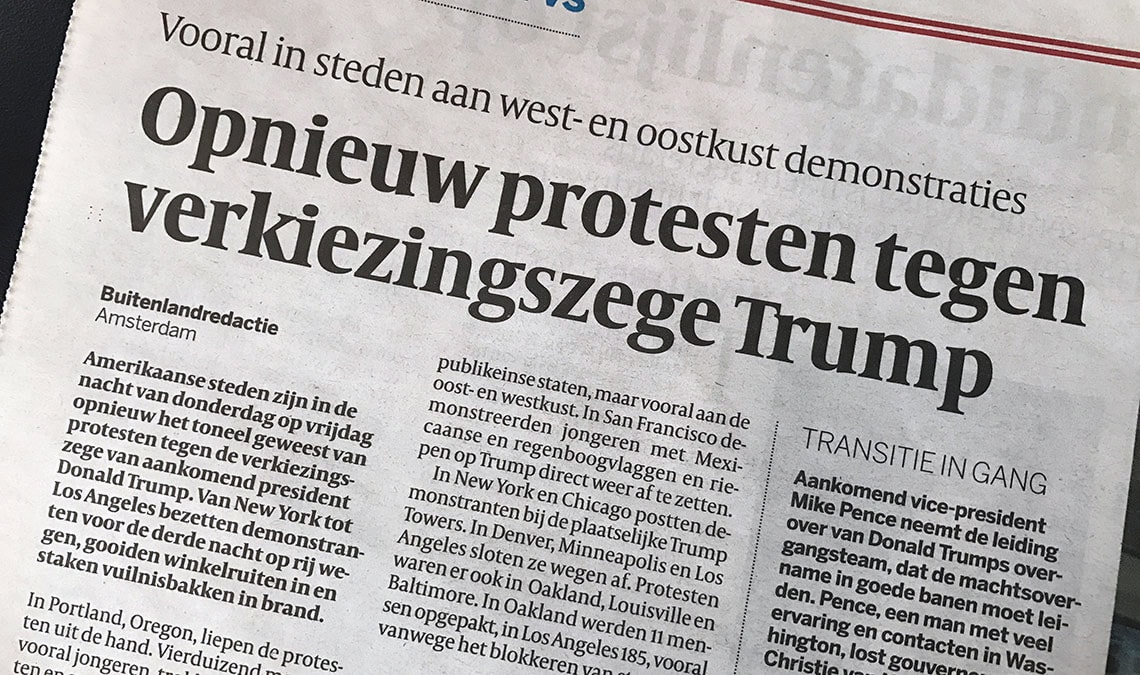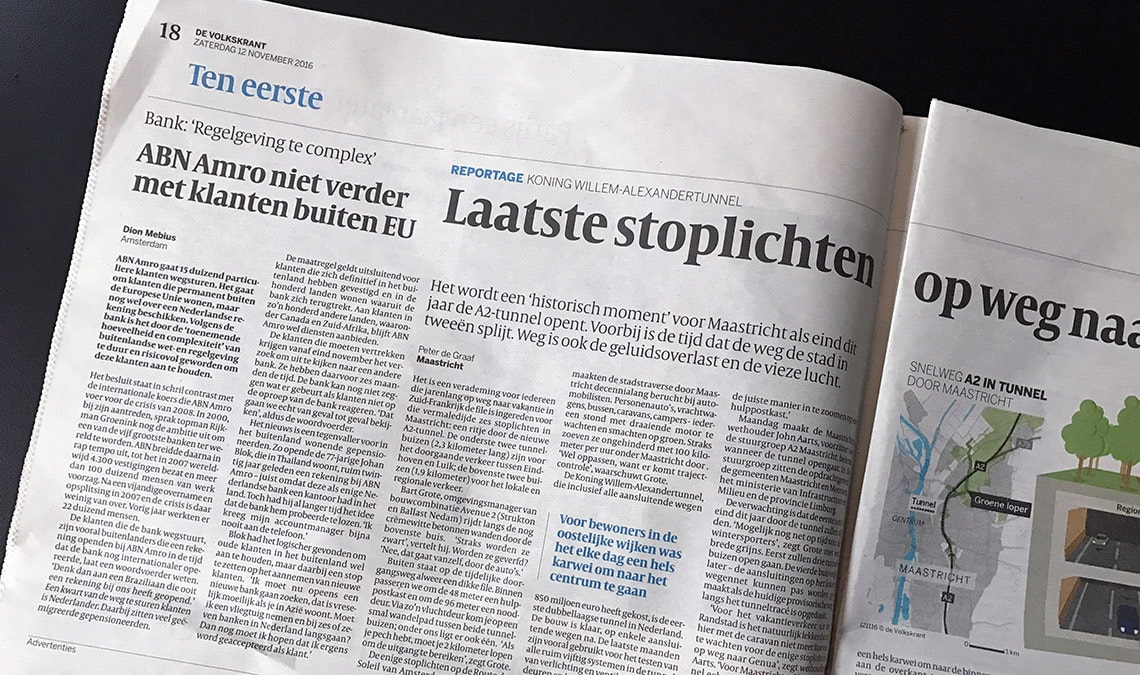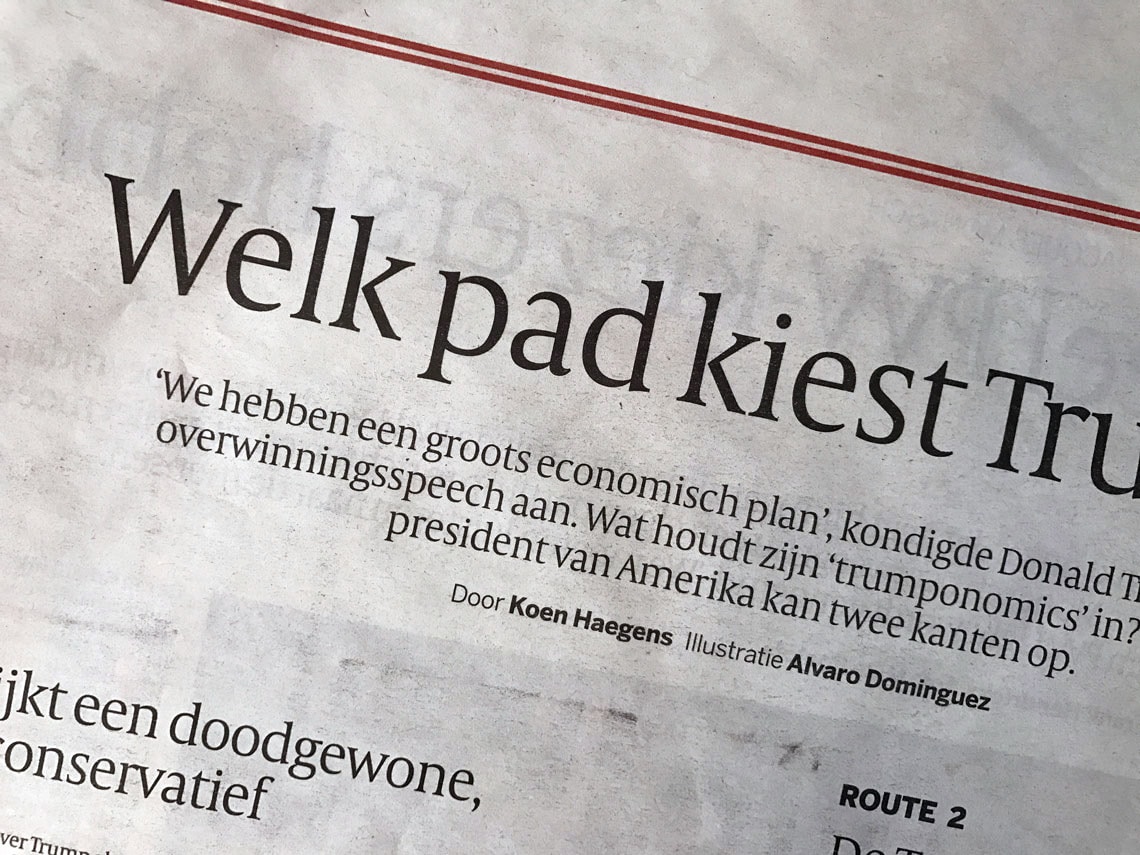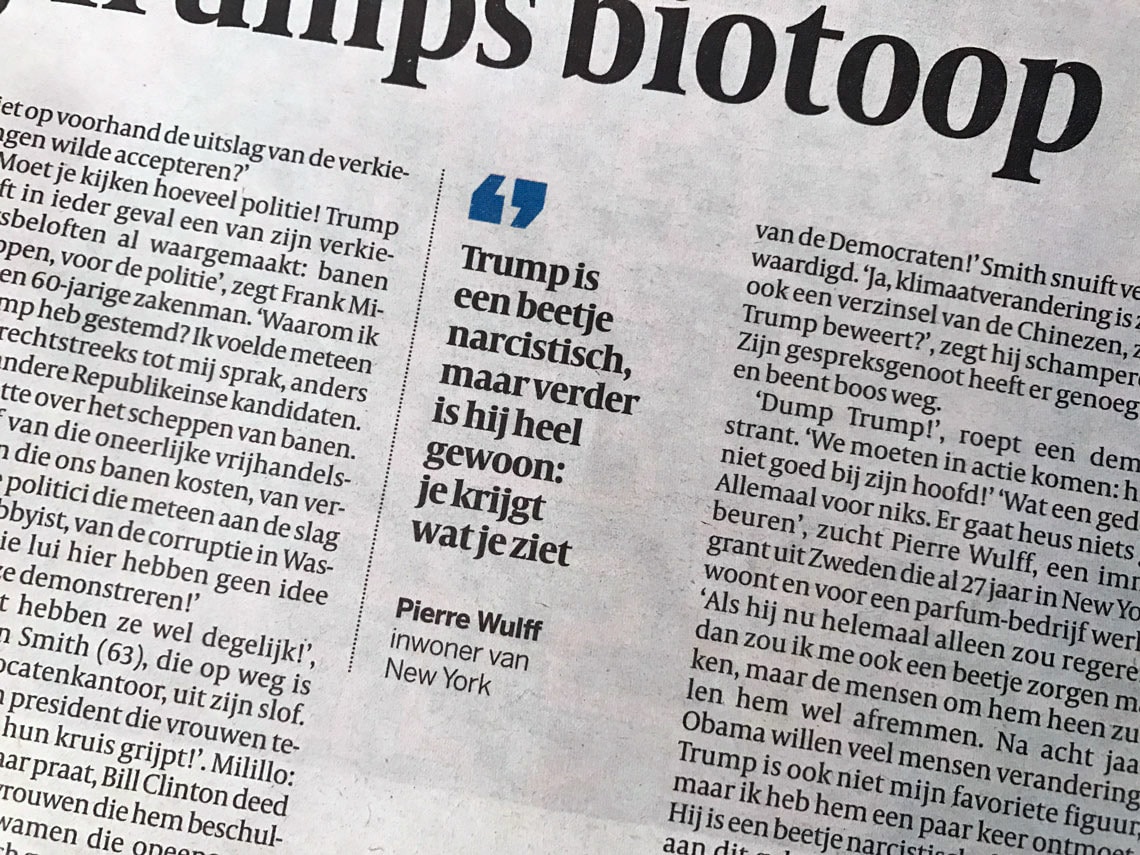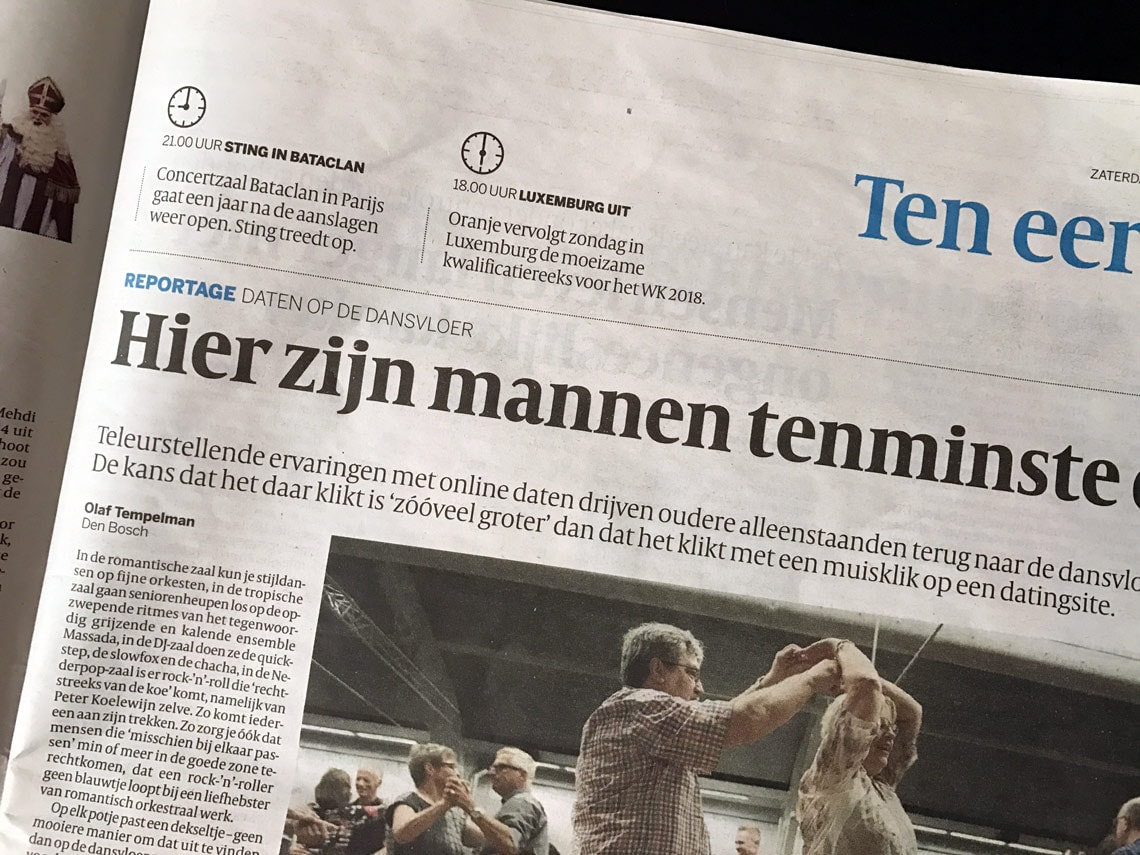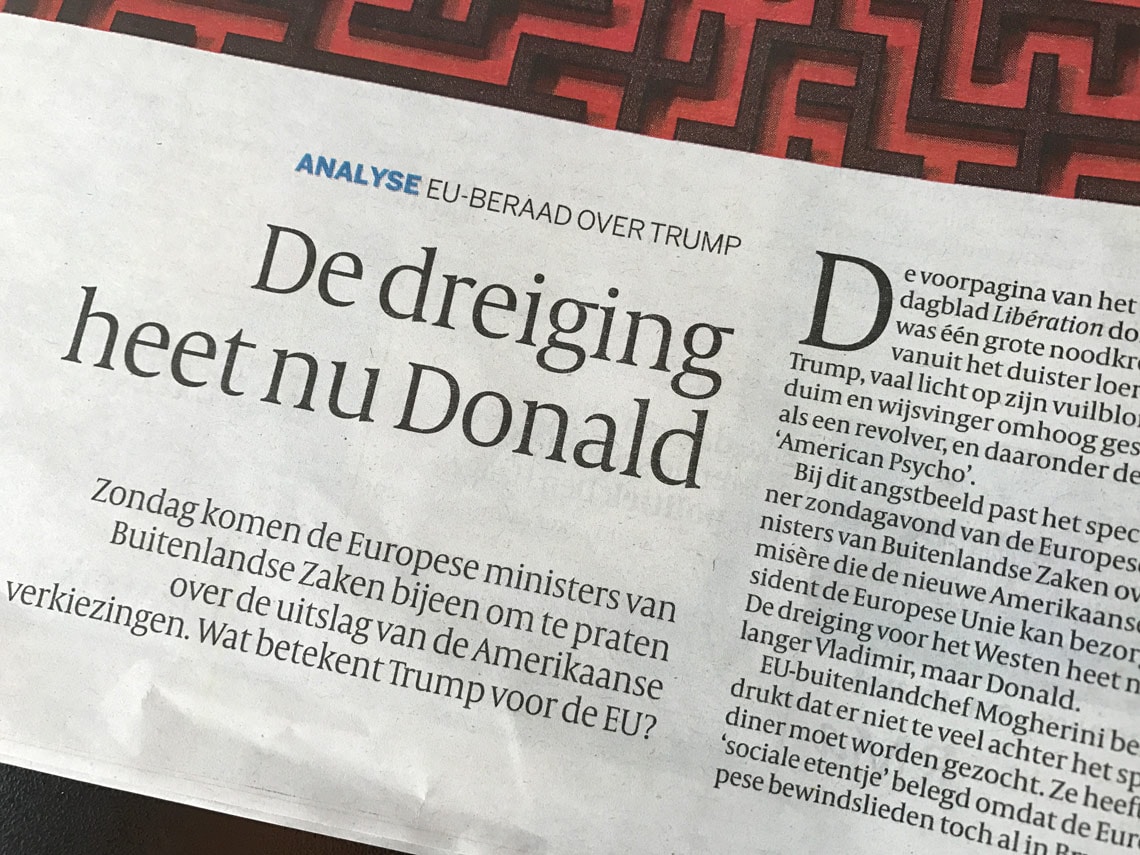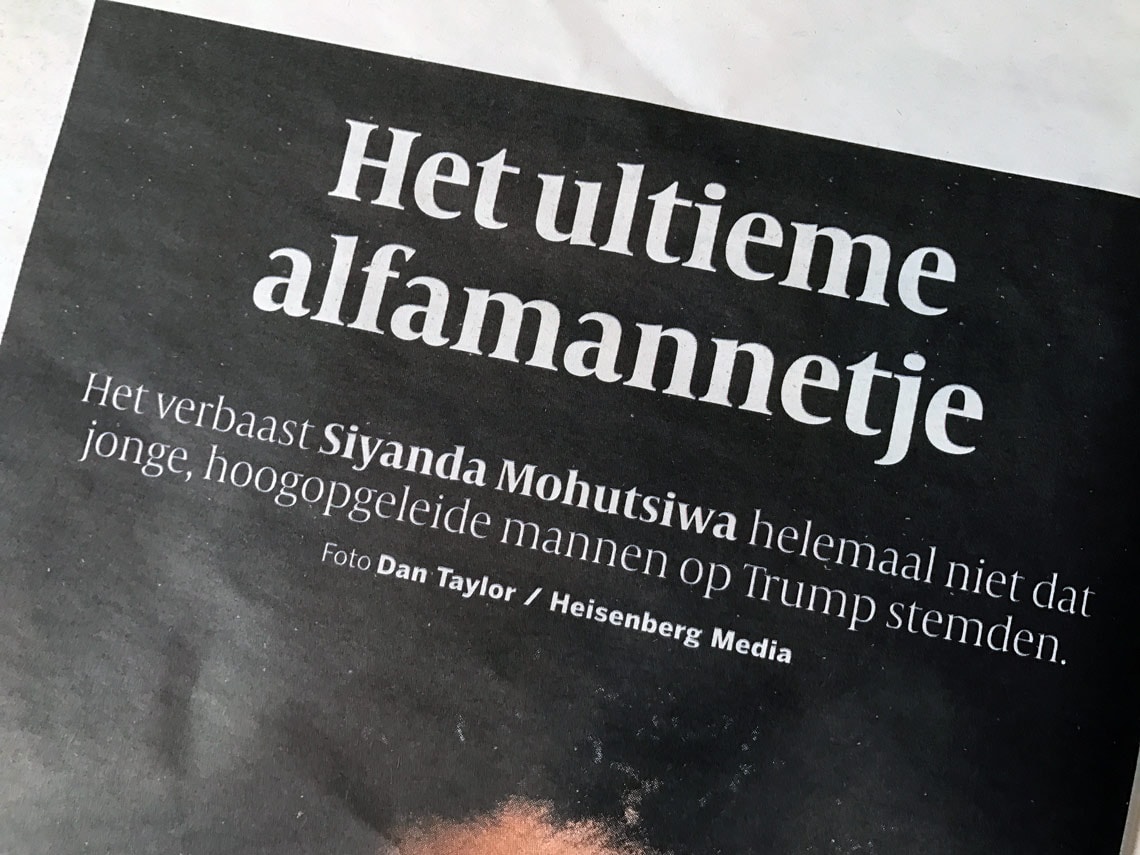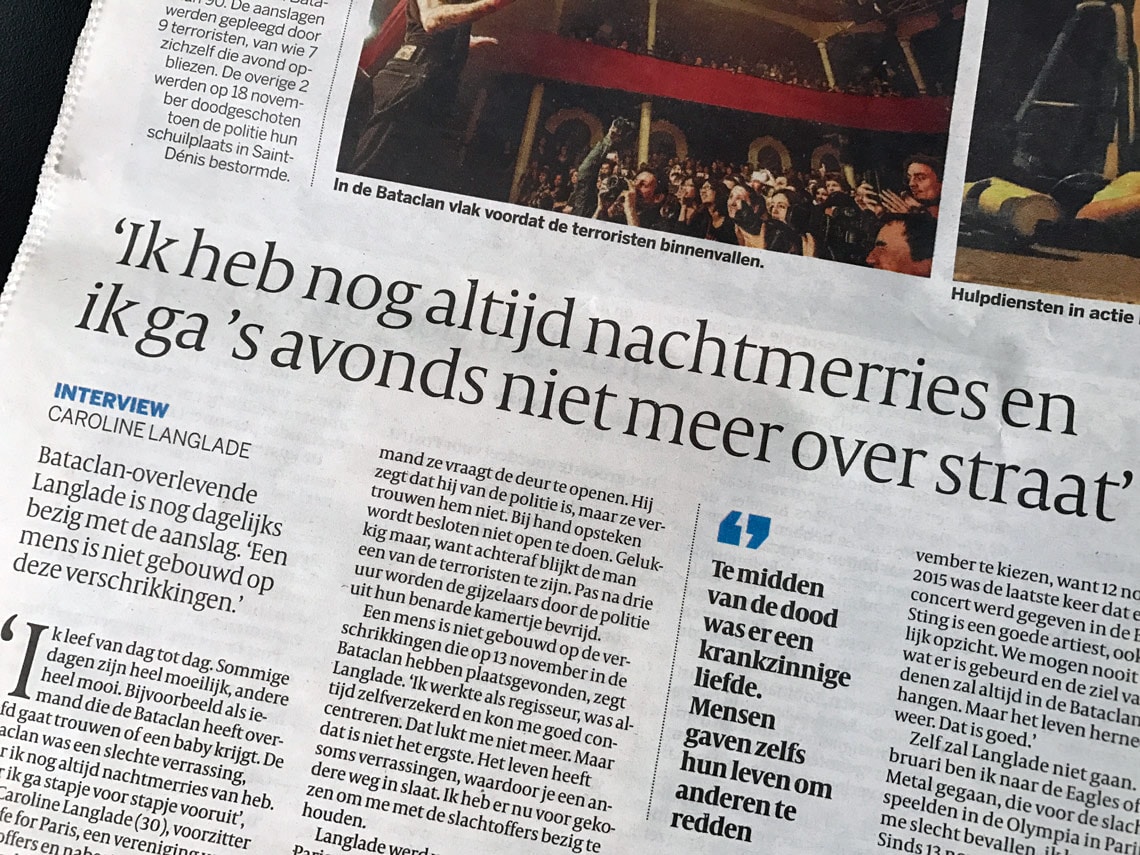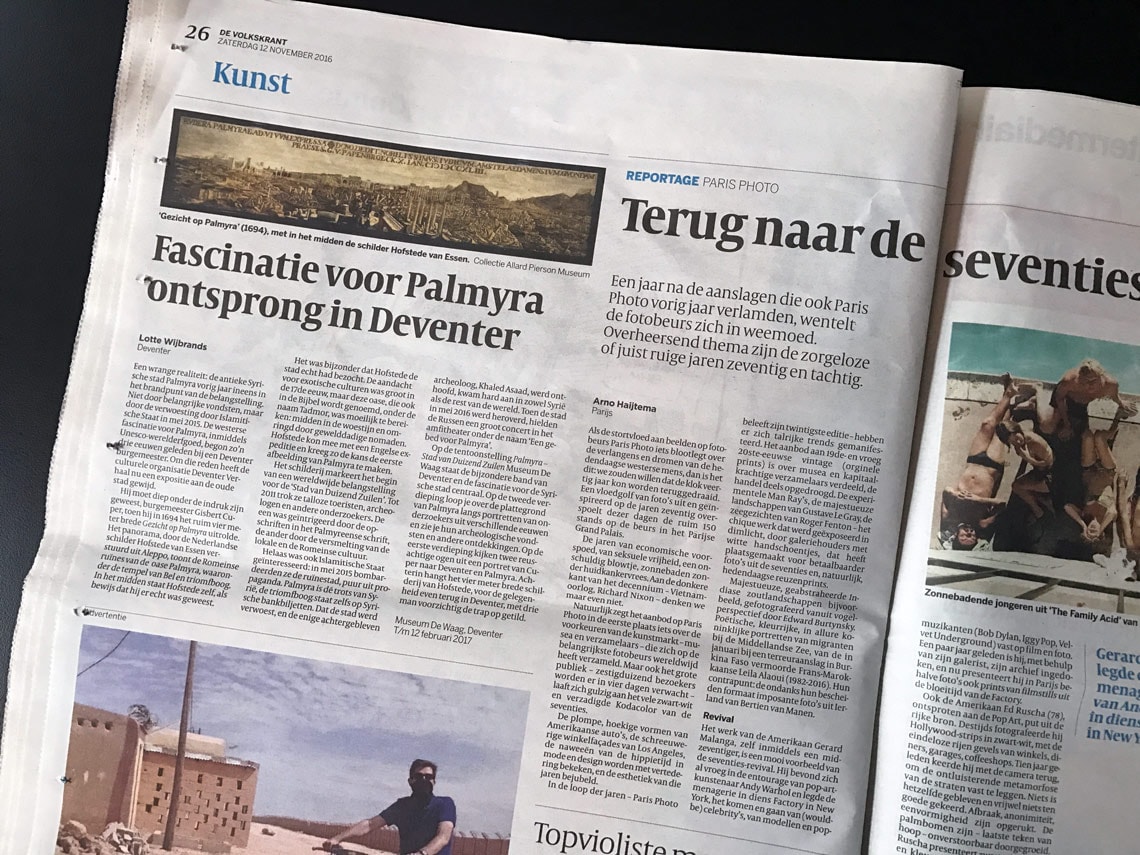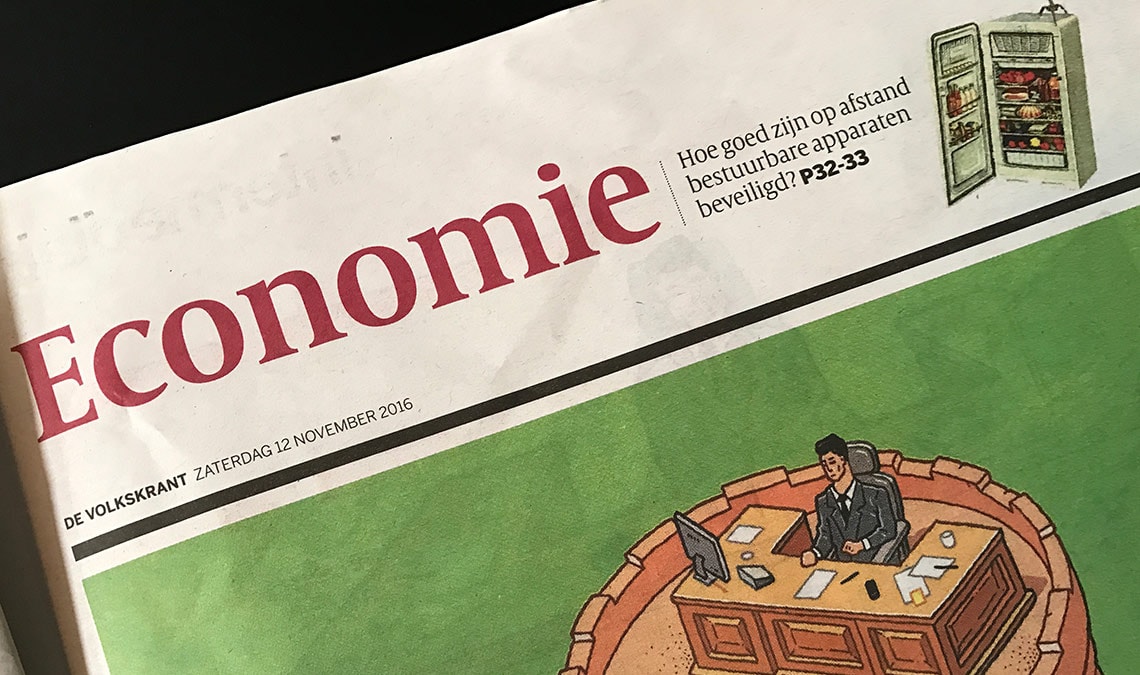
De Volkskrant
Gerard Unger's successful newspaper fonts Capitolium News 2 in use in the Dutch newspaper De Volkskrant.
De Volkskrant was established in 1921 and it is now one of the largest quality Dutch newspaper with a circulation of approximately 250,000 nationwide. In 2013 de Volkskrant was awarded the European Newspaper of the Year in the category of nationwide newspapers.
Since 2006 they have been primrily using the Capitolium 2 font family by Dr Gerard Unger in texts and headlines.
Capitolium was designed by Dr Gerard Unger in 1998 and since then it has been expanded to Capitolium 2, Capitolium News 2 and Capitolium Headlines News 2. The primary differences between Capitolium 2 and Capitolium News 2 is their x-height, serif sharpness, letter spacing, and available styles. Capitolium Headline 2 is the titling companion to this editorial type family, beautifully engineered for large sizes and compact setting.